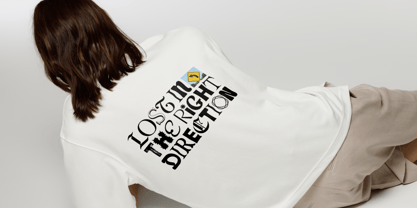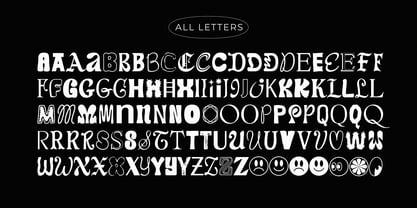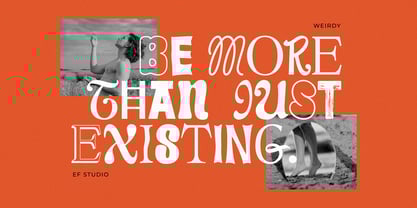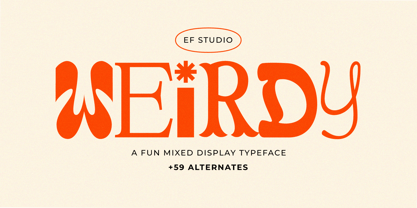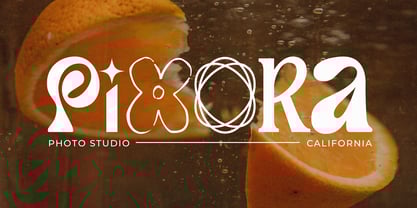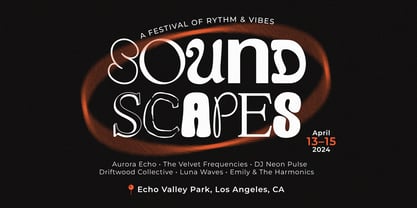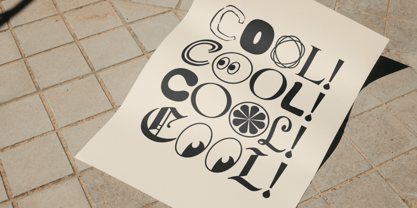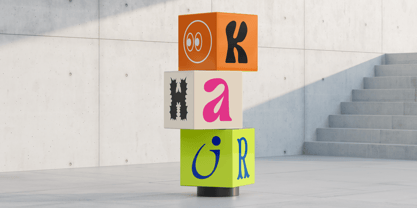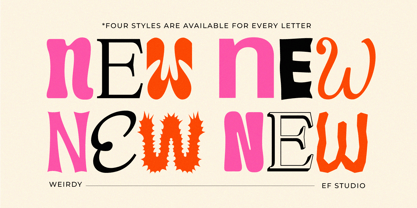
Weirdy
by Ef Studio
The Weirdy Font Family was designed by Luthfi Fauzi and published by Ef Studio. Weirdy contains 1 styles.
Introducing Weirdy, a bold and eclectic display typeface that redefines creativity. Each letter is a unique masterpiece, blending playful shapes, bold outlines, and decorative elements to create a dynamic and eye-catching aesthetic. Perfect for posters, branding, or editorial designs, Weirdy brings personality and energy to any project. Let your creativity shine with this one-of-a-kind typeface that’s designed to make a statement!
Designers: Luthfi Fauzi
Publisher: Ef Studio
Foundry: Ef Studio
Design Owner: Ef Studio